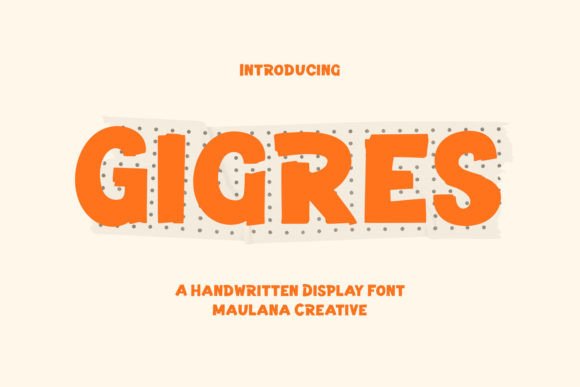
Introducing Gigres Font: The Ultimate Display Font for Bold and Daring Designs
Are you tired of using the same old fonts for your designs? Do you want to add a touch of uniqueness and personality to your projects? Look no further than Gigres Font, a cool and unique handwritten display font that’s perfect for product packaging, branding, and other projects that need bold and daring typography.
What is Gigres Font?
Gigres Font is a carefully crafted handwritten display font that’s designed to make a statement. With its bold and daring lines, this font is perfect for designers and crafters who want to add a touch of personality to their projects. Whether you’re working on a product packaging design, a branding project, or a bold advertising campaign, Gigres Font is the perfect choice.
Key Features of Gigres Font
- Unique and Handwritten: Gigres Font is a truly unique and handwritten font that’s been carefully crafted to provide a personal touch to your designs.
- Bold and Daring: With its bold and daring lines, Gigres Font is perfect for projects that need to make a statement.
- High-Quality: Gigres Font is a high-quality font that’s been designed to provide clear and crisp lines, even at large sizes.
Why Choose Gigres Font?
There are many reasons why you should choose Gigres Font for your next project. Here are just a few:
- Add Personality to Your Designs: Gigres Font is a unique and handwritten font that will add a touch of personality to your designs.
- Stand Out from the Crowd: With its bold and daring lines, Gigres Font will help your designs stand out from the crowd.
- Perfect for Product Packaging: Gigres Font is perfect for product packaging designs that need to make a statement.
- Great for Branding: Gigres Font is also great for branding projects that need a bold and daring typography.
Tips and Tricks for Using Gigres Font
Here are some tips and tricks for using Gigres Font:
- Use it Sparingly: Use Gigres Font sparingly, as it’s a bold and daring font that can be overwhelming if used too much.
- Pair it with Other Fonts: Pair Gigres Font with other fonts to create a unique and interesting design.